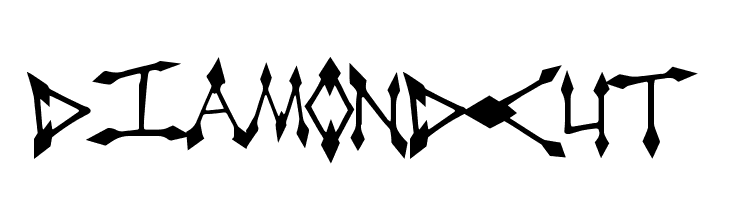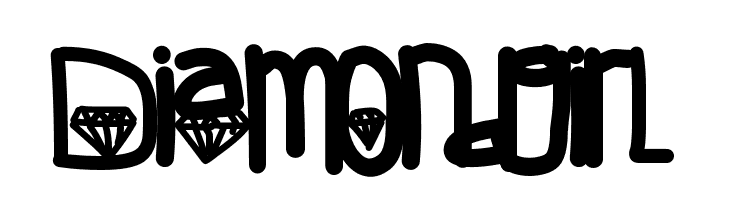
• Diamond Ring Regular schriftart
A bold, geometric font with a three-dimensional, gemstone-like appearance.
• Diamond Signature Regular schriftart
A dynamic handwritten font with expressive flourishes and elegant curves.
• Diamond Smith schriftart
Casual handwritten script font.
• Diamond Sparkling schriftart
A high-contrast serif font with elegant, refined strokes.
• Diamond Sparkling Italic schriftart
A bold, italicized font with high contrast and elegant style.
• DiamondAwareness schriftart
A playful, hand-drawn font with tall, narrow characters and whimsical symbols.
• DiamondBridgeDEMO schriftart
A high-contrast serif font with elegant, sharp serifs and a modern classic style.
• DiamondCut schriftart
A bold, angular font with a geometric, shard-like design.
• Diamonde Personal Use schriftart
A bold, high-contrast script font with elegant, flowing characters.
• Diamondgirl schriftart
A bold, hand-drawn font with playful diamond motifs and a whimsical style.